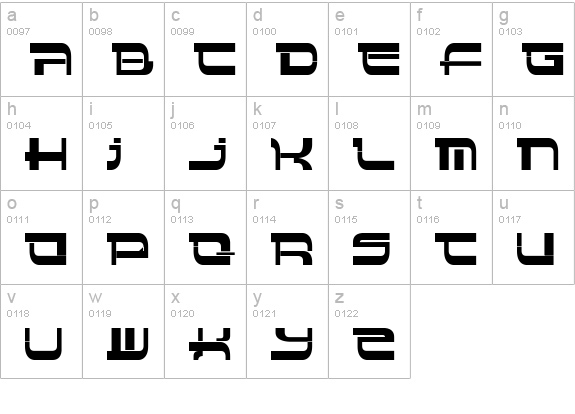
Insert 4 Font Details
Introducing Insert 4 font, a stunning display typeface that effortlessly captures attention with its unique and modern design. This font is perfect for those seeking to make a bold statement in their creative projects, whether it be in branding, advertising, or editorial design. With its clean lines, sharp edges, and stylish curves, Insert 4 font adds a touch of sophistication and elegance to any design. Its versatility allows it to be used in a variety of contexts, from headlines and logos to posters and website designs. The possibilities are endless with this remarkable typeface. One of the best things about Insert 4 font is that it is completely free. Yes, you read that right! This extraordinary font is freely available to download at FontsMarket.com. So, not only will you be able to enhance your designs with this exceptional typeface, but you can also do so without any cost. FontsMarket.com is a trusted source for high-quality fonts, and the availability of Insert 4 font on their platform is a testament to its excellence. By downloading this font from FontsMarket.com, you can be assured of its authenticity and reliability. So, why wait? Don't miss out on the opportunity to elevate your design game with Insert 4 font. Download it for free at FontsMarket.com and let your creativity soar to new heights. Whether you're a professional designer or a hobbyist, this font is sure to become a valuable addition to your typographic toolbox.